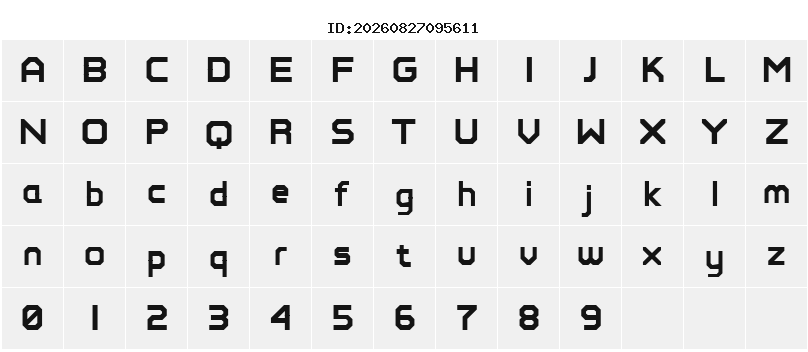
329-CAI978 Preview
About 329-CAI978.ttf
329-CAI978.ttf is a modern, elegant sans-serif font designed for ultimate readability and visual harmony. Perfect for branding, headlines, web design, and print materials.